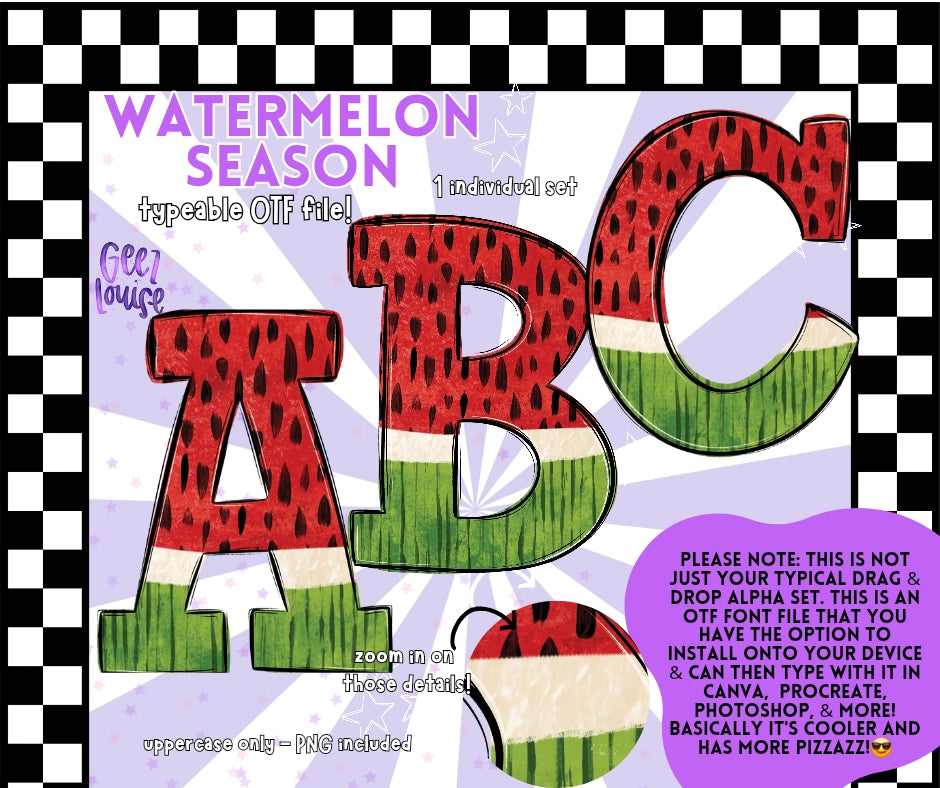
Watermelon Season - TYPEABLE OTF Font - Alpha Set - Digital Download- PNG
🍉 Watermelon Season – Typeable OTF Font + PNG Alpha Set
Summer just got sweeter with the Watermelon Season Alpha Set! This juicy, hand-crafted typeable font is bursting with fruity fun – featuring a watermelon-inspired texture with bold red, creamy white, and fresh green stripes, topped with classic black seeds for a deliciously playful vibe.
Whether you're crafting for the Fourth of July, family BBQs, or just love a good fruit-themed moment, this font brings major summer vibes to any project!